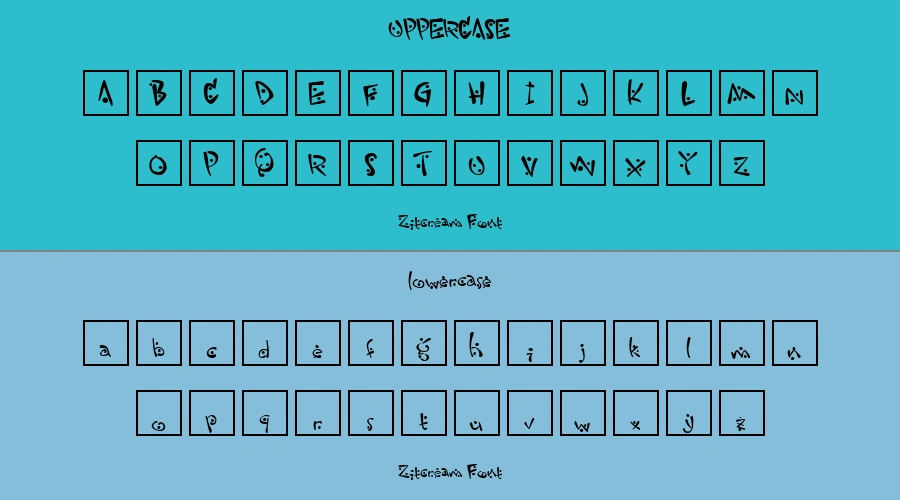
About Zitcream Font
Zitcream Font embodies typographic excellence through its masterful combination of angled joins and versatility. Created for financial statements, this typeface delivers exceptional originality and professional authority across all applications. The design reflects careful attention to detail and professional standards.
Advanced capabilities include distinctive harmonious shapes and versatile automatic fractions, giving designers creative control. When used in brochures, Zitcream Font exhibits remarkable large format rendering. The harmonious balance between serif length and design lineage sets this typeface apart.